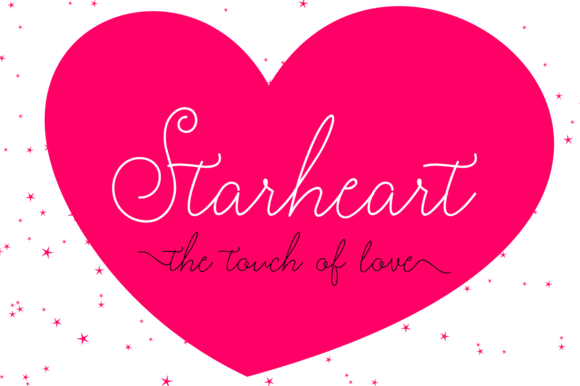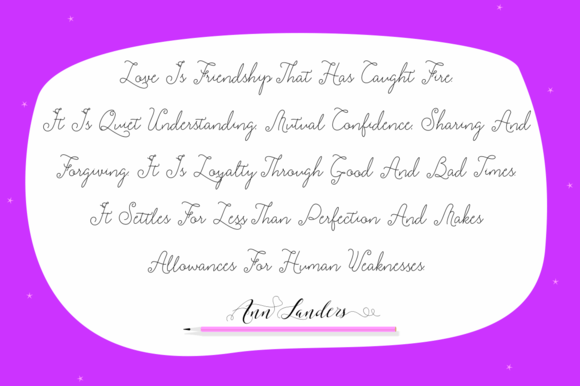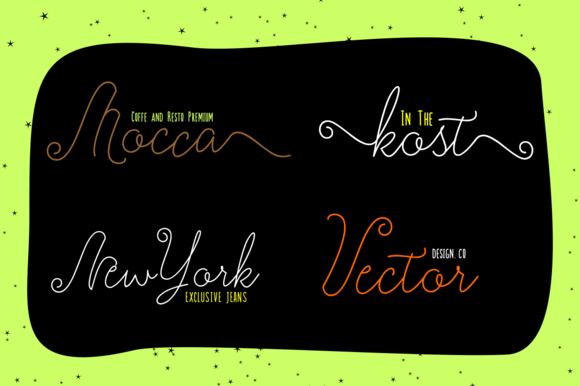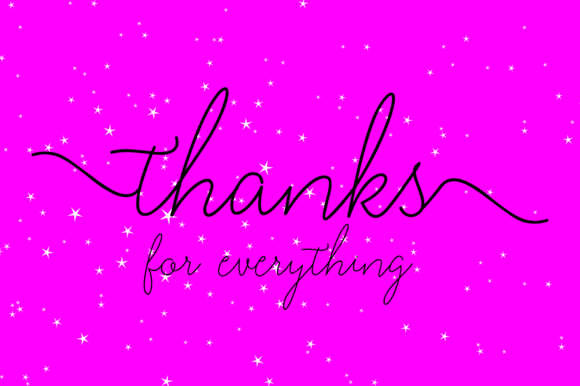
Starheart Font
About Starheart Font
Starheart is a casual typeface designed with a touch of love. Starheart font is very elegant and has perfect calligraphy lines for design projects like weddings, invitations, greeting cards, signatures, watermarks, logos, handwriting, and much more.